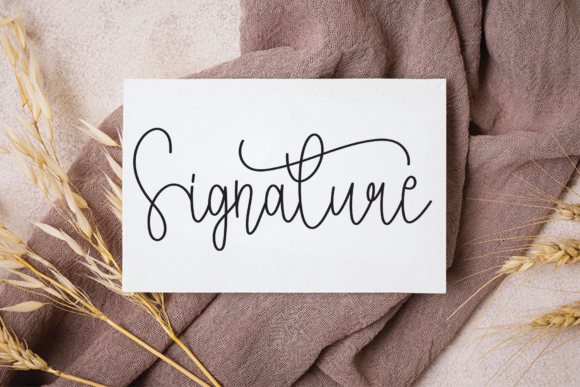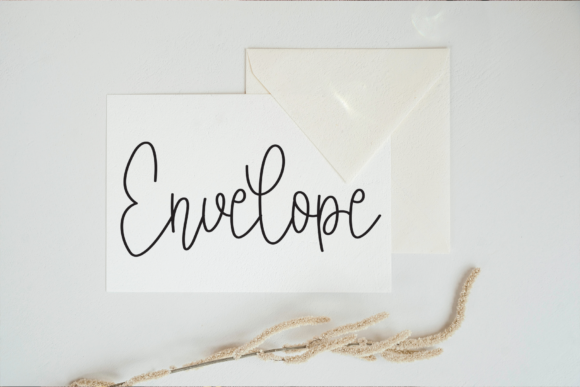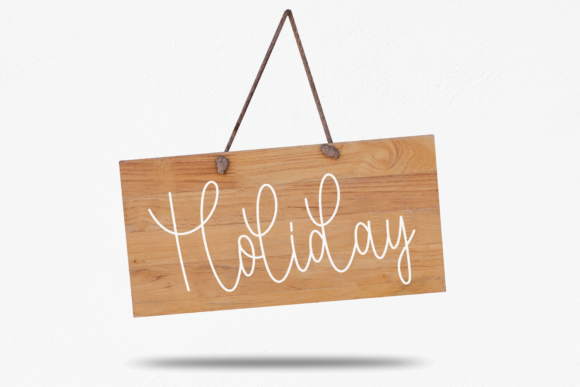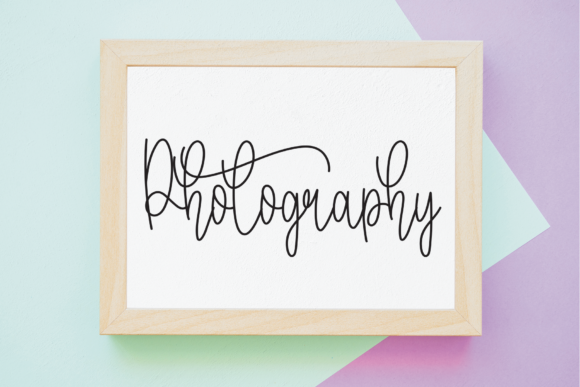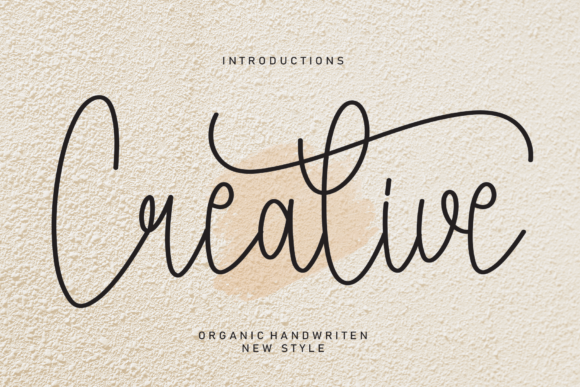
Introducing Creative Font: Elevate Your Designs with a Touch of Whimsy
Are you tired of using the same old fonts in your designs? Do you want to add a dash of personality and whimsy to your creative projects? Look no further than Creative Font, a thin lettered script font that’s sure to make your designs stand out. In this article, we’ll dive into the features and benefits of Creative Font, and explore how you can use it to take your designs to the next level.
What is Creative Font?
Creative Font is a beautiful, hand-crafted script font that’s designed to add a touch of elegance and playfulness to your designs. With its thin lettering and charming, playful characters, this font is perfect for a wide range of creative projects, from branding and advertising to packaging and digital media.
One of the standout features of Creative Font is its unique, dancing baseline. The characters seem to bounce and sway along the baseline, giving your text a sense of movement and energy. This makes it perfect for designs that need to capture the viewer’s attention and hold it.
Key Features of Creative Font
- Thin lettering: Creative Font features thin, elegant lettering that’s perfect for designs that need a touch of sophistication.
- Playful characters: The font’s charming, playful characters add a dash of whimsy and personality to your designs.
- Dancing baseline: The unique, dancing baseline gives your text a sense of movement and energy.
- Easy to read: Despite its playful nature, Creative Font is easy to read, making it perfect for body text and headlines.
Benefits of Using Creative Font
- Adds personality: Creative Font adds a touch of personality and whimsy to your designs, helping them to stand out in a crowded marketplace.
- Versatile: This font is perfect for a wide range of creative projects, from branding and advertising to packaging and digital media.
- High-quality: This font is designed to high standards, ensuring that it looks great in any design.
How to Use Creative Font in Your Designs
So how can you use Creative Font in your designs? Here are a few ideas to get you started:
- Branding: Use Creative Font as a logo font or as part of a brand identity package.
- Advertising: Add a touch of whimsy to your adverts with Creative Font.
- Packaging: Use Creative Font on product packaging to make your products stand out on store shelves.
- Digital media: Use Creative Font in digital media, such as social media graphics, blog posts, and email marketing campaigns.
Tips for Getting the Most Out of Creative Font
Here are a few tips for getting the most out of Creative Font:
- Experiment with different colors: Try out different colors and color combinations to see what works best with Creative Font.
- Play with font sizes: Experiment with different font sizes to add visual interest to your designs.
- Combine with other fonts: Try combining Creative Font with other fonts to create a unique and eye-catching design.
| Font Name | Creative Font |
In conclusion, Creative Font is a beautiful, versatile font that’s perfect for designers and crafters who want to add a touch of whimsy and personality to their designs. With its thin lettering, playful characters, and dancing baseline, this font is sure to make your designs stand out. Whether you’re working on a branding project, an advertising campaign, or a digital media project, Creative Font is a great choice. So why not give it a try and see how it can elevate your designs?